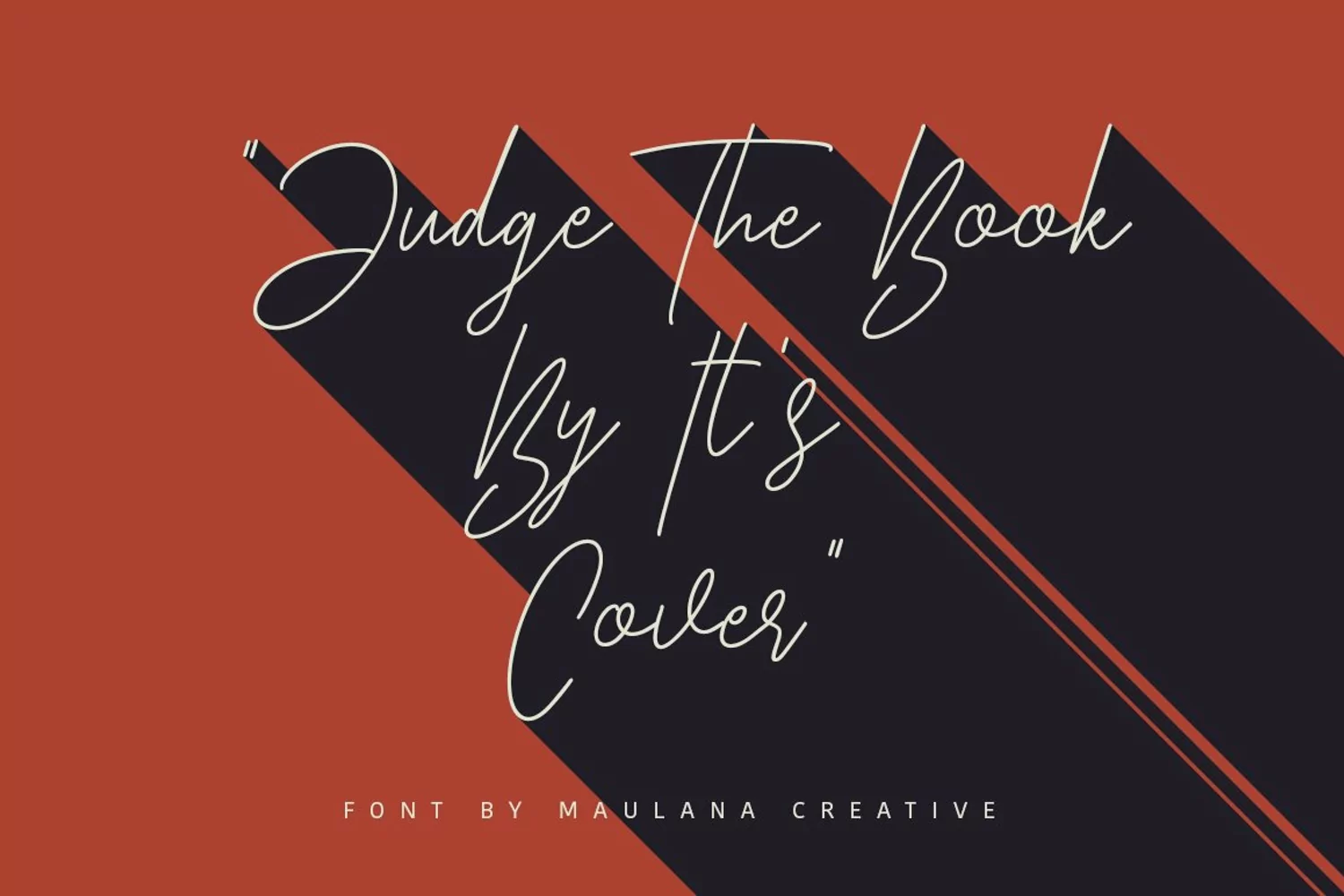
Give your designs an authentic handcrafted feel. "Goodsay" is perfectly suited to signature, stationery, logo, typography quotes, magazine or book cover, website header, clothing, branding, packaging design and more. Included 2 Font, Regular and Alternate.License: This font included for personal, commercial use, multiple projects, behalf of a client. Fonts may be printed on to products that are subsequently sold, websites and within website design. Graphics may be printed on to products that are subsequently sold when an effort is made to use them as part of a new design including a variation of other graphics or fonts.This font available on 2 OTF and 2 TTF formats.Thanks for use this font ~ Maulana